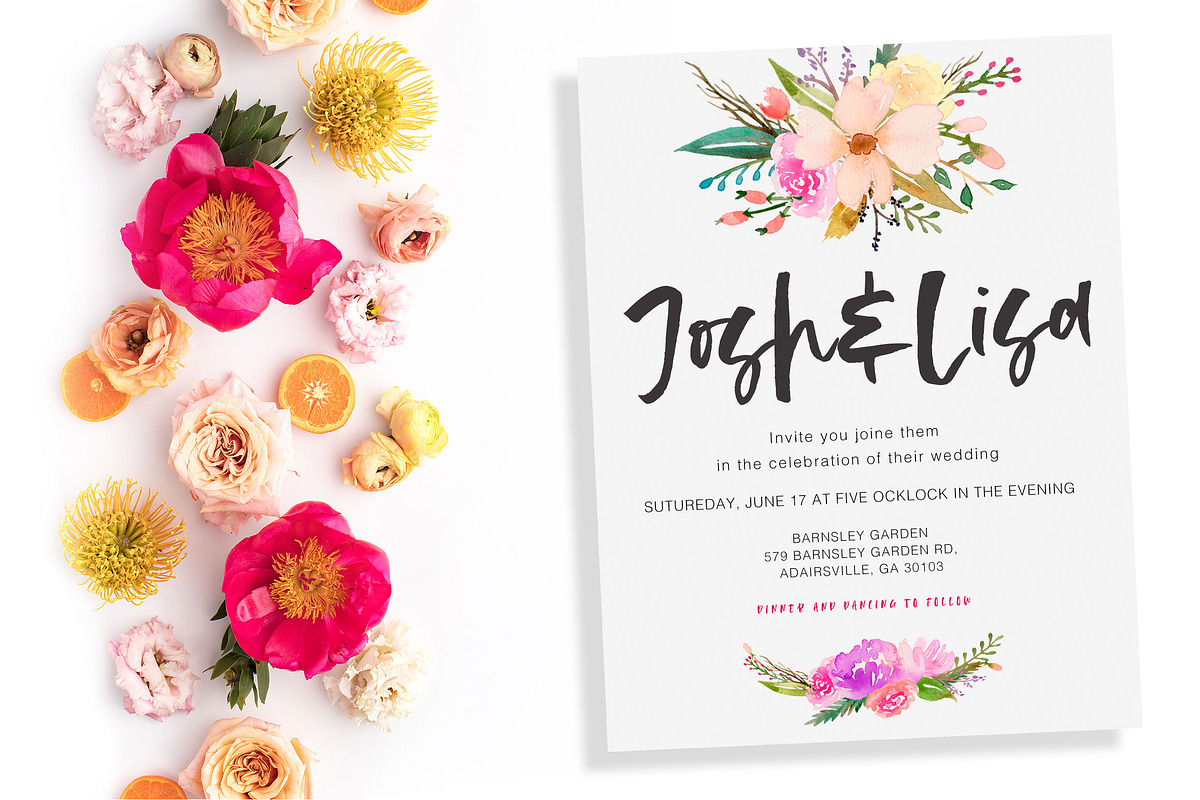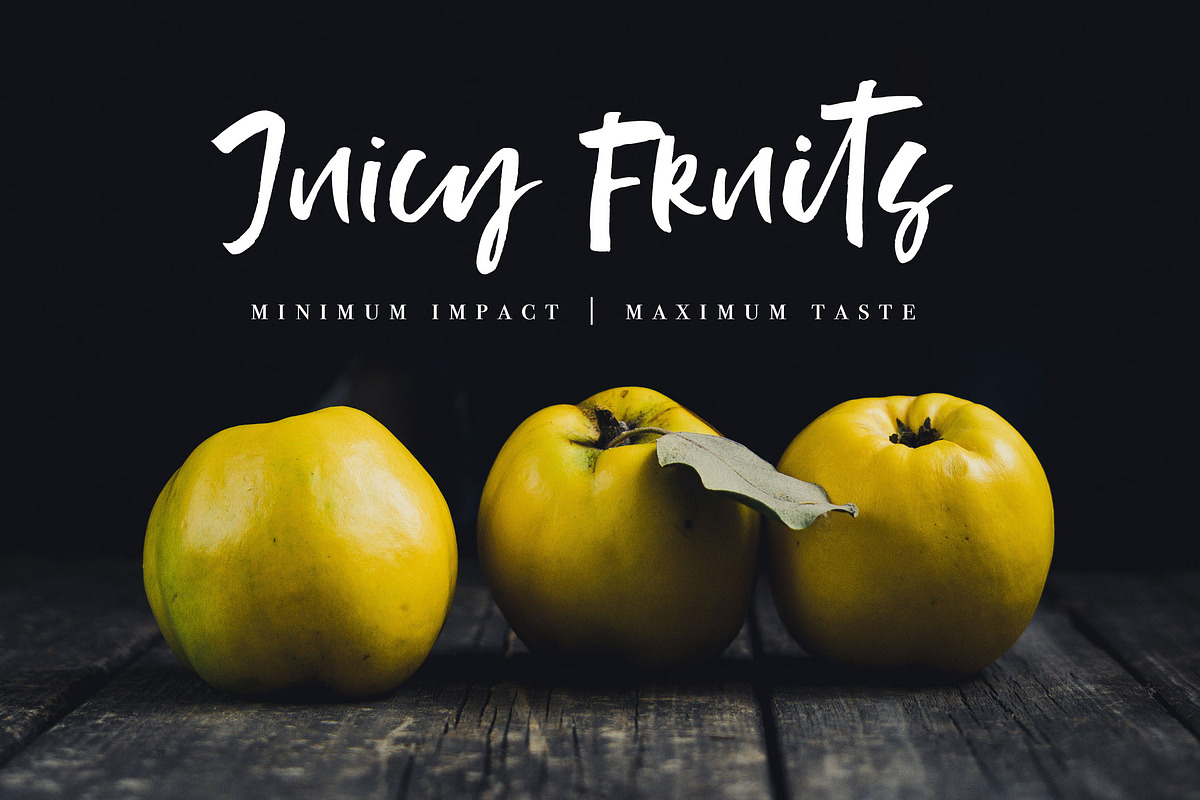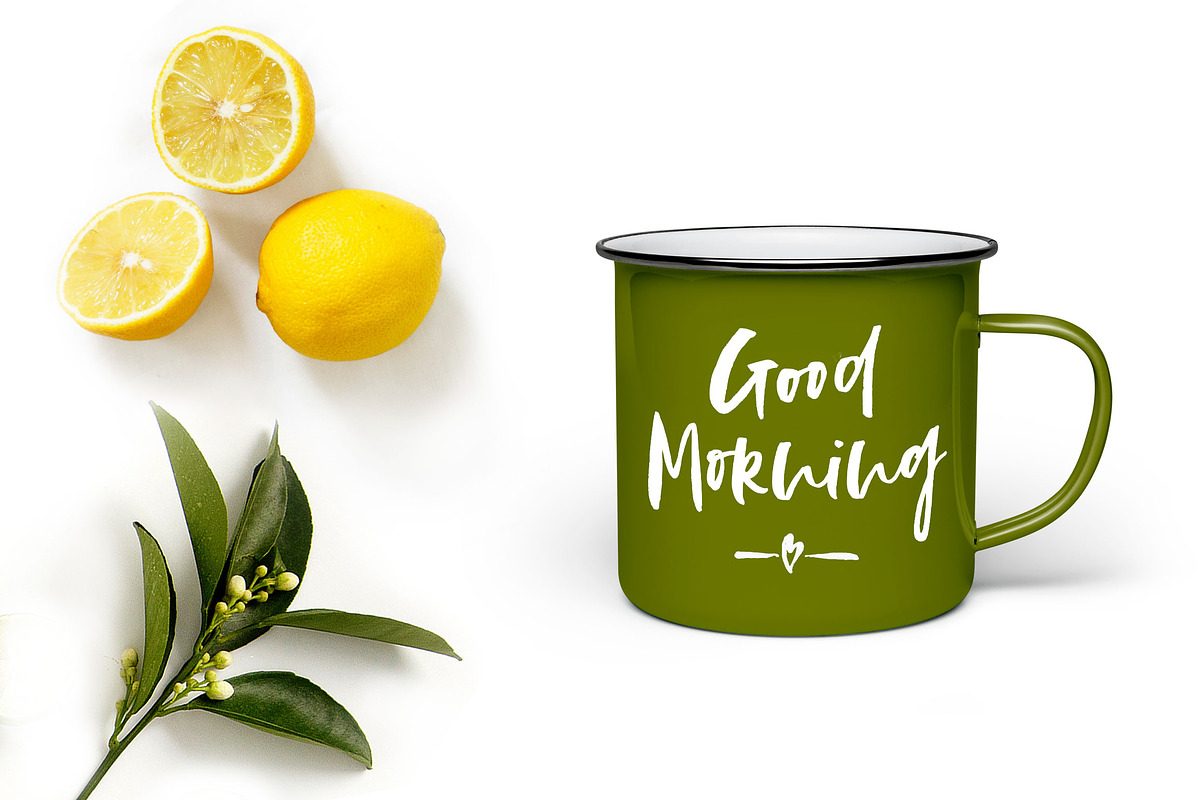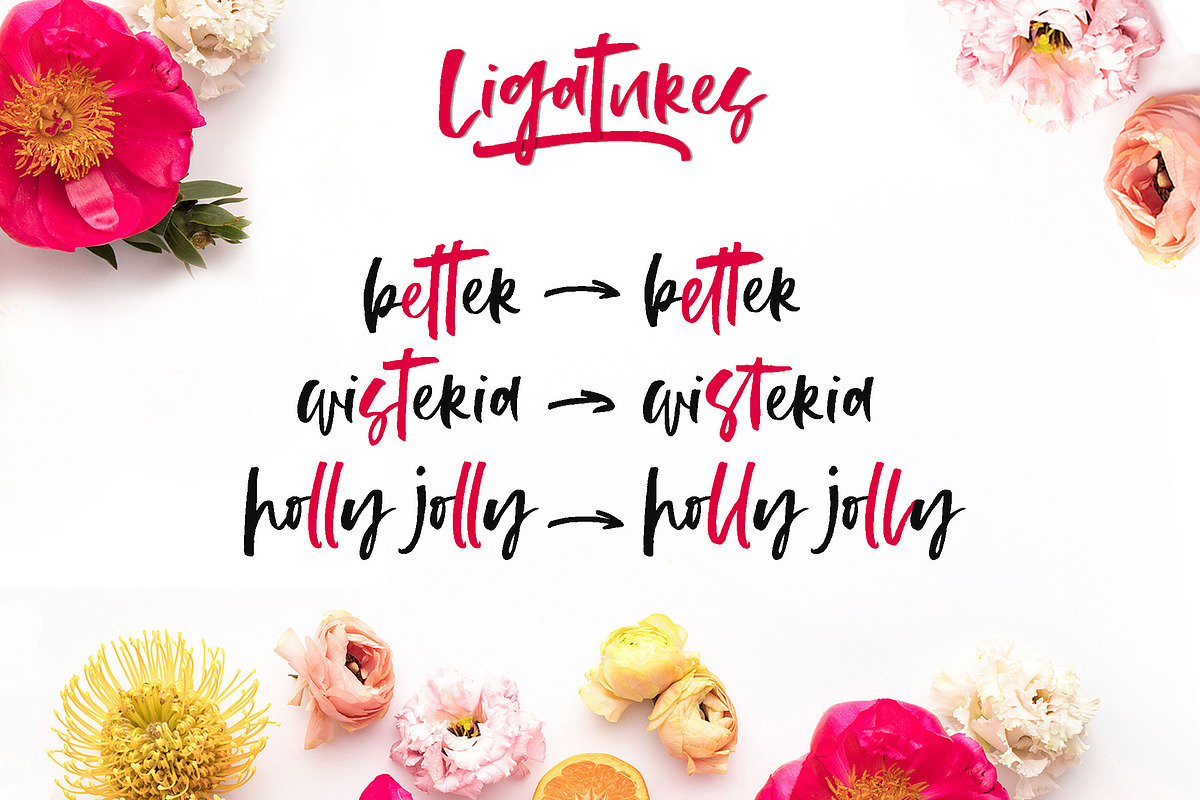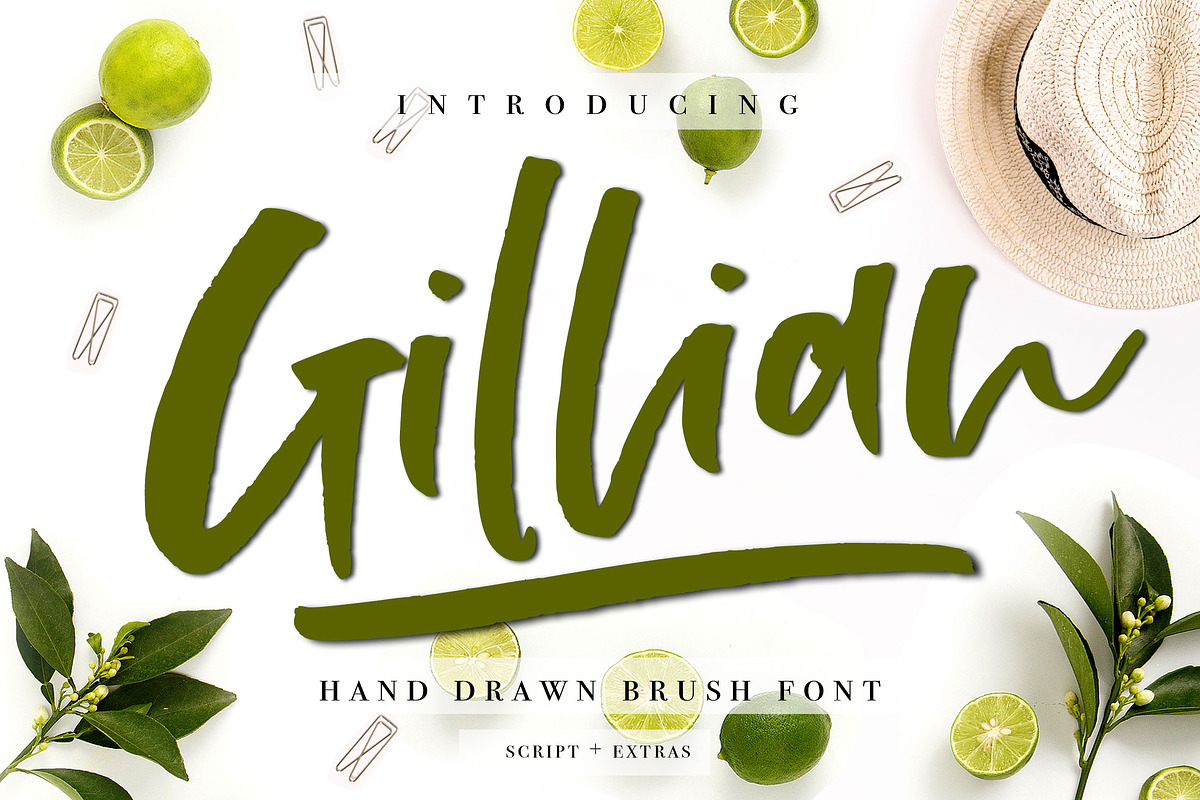
Gillian Font + Extras
It's hand-drawn calligraphic script with dancing baseline and expressive letters. Use Gillian for your cards, wedding invitations, headings, branding materials, quotes, t-shirt and any other amazing projects you are working on.
Gillian font includes Upper and Lowercase Basic Characters, Numbers and Punctuation. Also font comes with Open Type Features (OTF) consisting of a full set of Alternates Lowercase and Uppercase Charachters, Standart and Discretionary Ligatures that allow you create so unique and variational designs.
Gillian has multilingual support for the Western and Central European Languages.